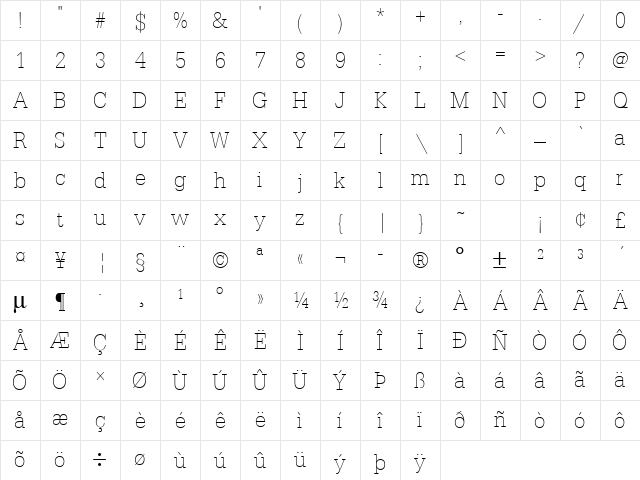
Complete URWTypewriterTExtLigExtNar Regular glyph index. Displaying only characters natively supported by URWTypewriterTExtLigExtNar Regular font.
URWTypewriterTExtLigExtNar uses fixed-width spacing throughout, giving it the structured, systematic character associated with coding environments and technical documentation.